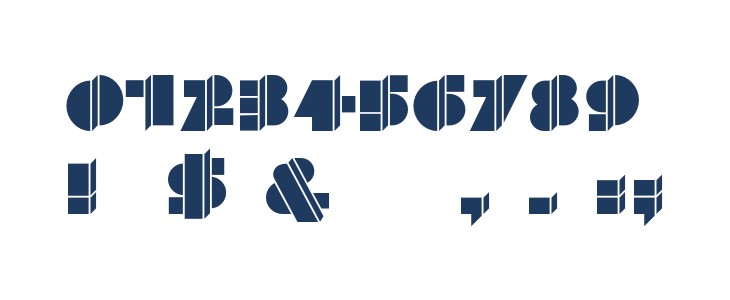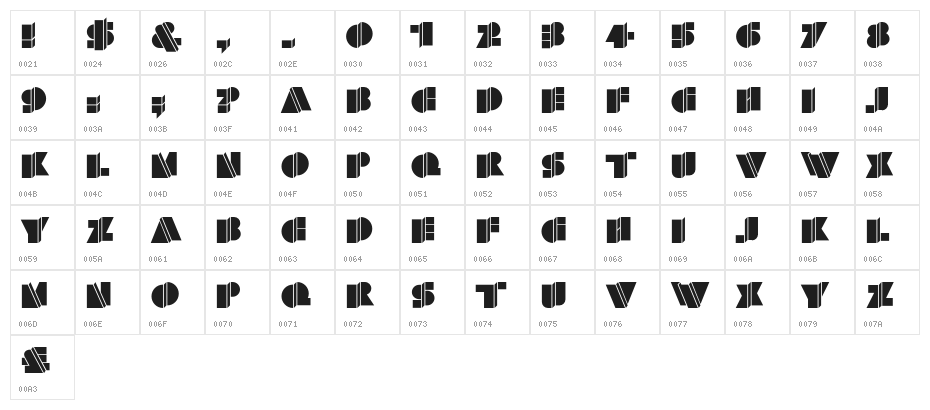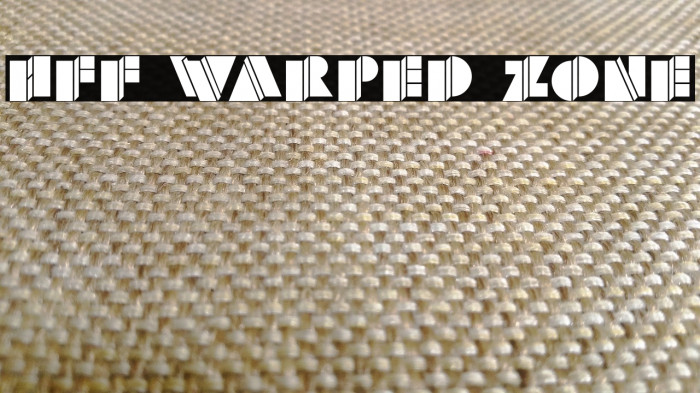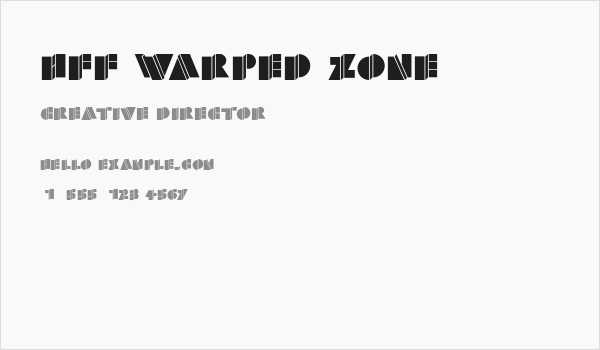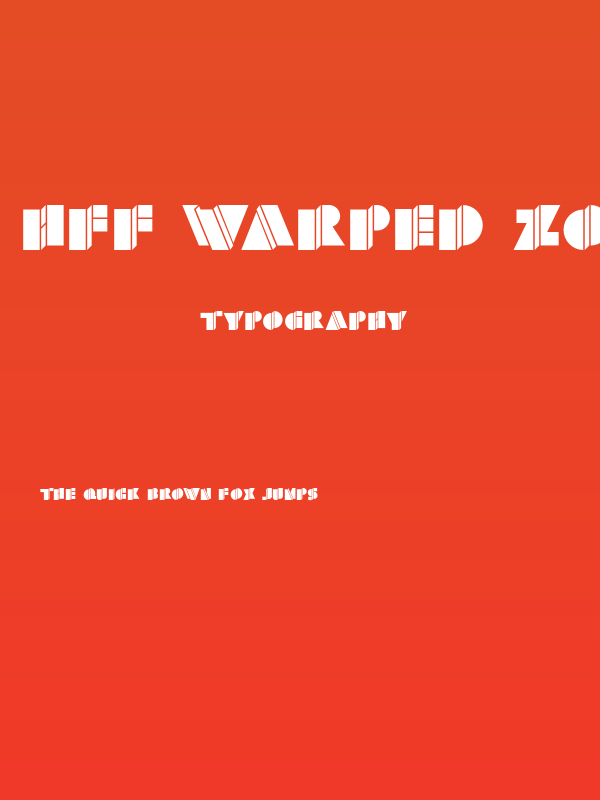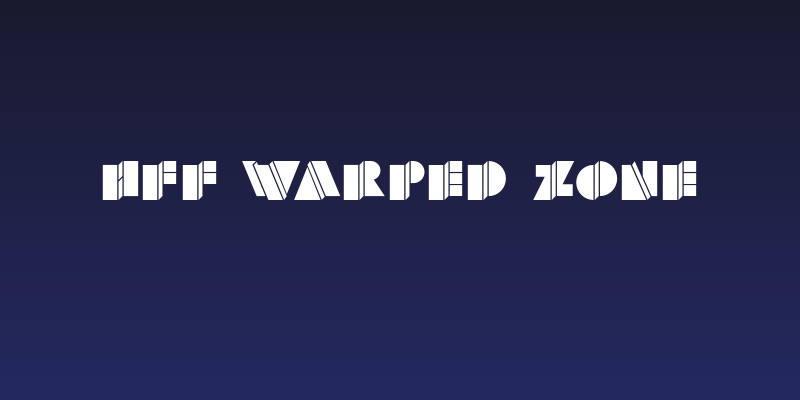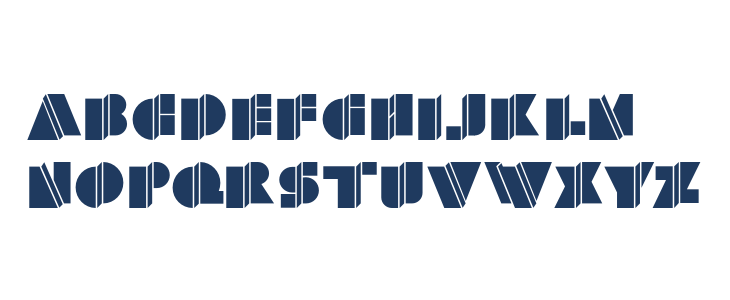
HFF Warped Zone Font
HFF Warped Zone Description
This font features a bold and geometric design with a distinct stencil-like appearance. Each character is composed of thick, solid shapes with sharp angles and clean lines, creating a strong visual impact. The font's unique style is characterized by its fragmented look, where parts of the letters are intentionally missing, giving it a modern and edgy feel. The uppercase and lowercase letters maintain a consistent style, and the numbers and special characters follow the same design principles, ensuring uniformity across all glyphs. This font is ideal for projects that require a bold statement and a contemporary aesthetic.
| Proposed Projects | Ideal for posters, logos, branding, and any design that requires a strong, modern statement. |